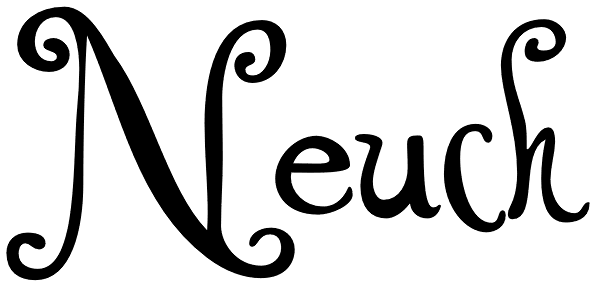
ALS Neuch
Neuch is a neat typeface for greeting cards, children's books, labels and signs, handmade goodies packaging, and other cheerful designs. Drawn with a sharp-tipped ink pen, the letters kick their legs up and down, stretch out their tails, and hop...